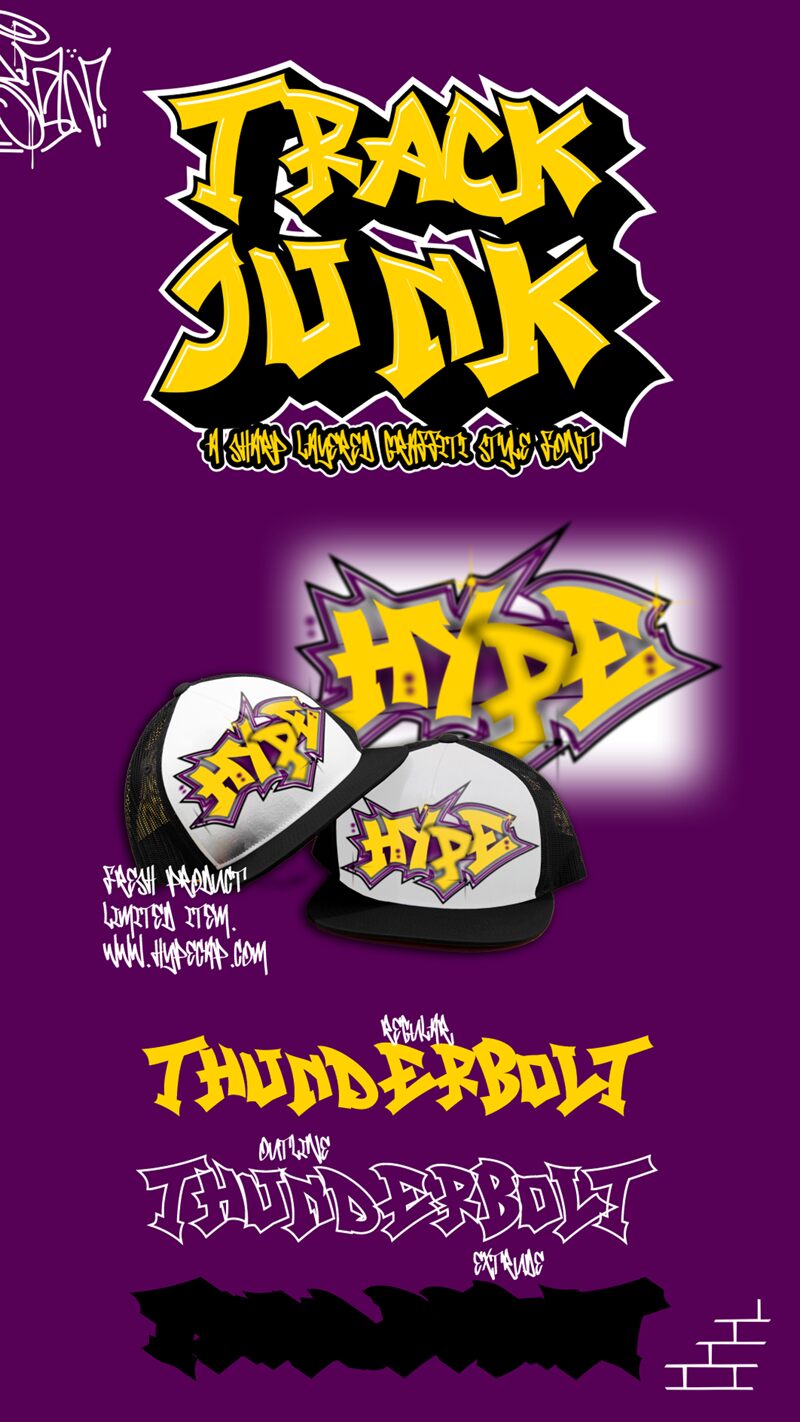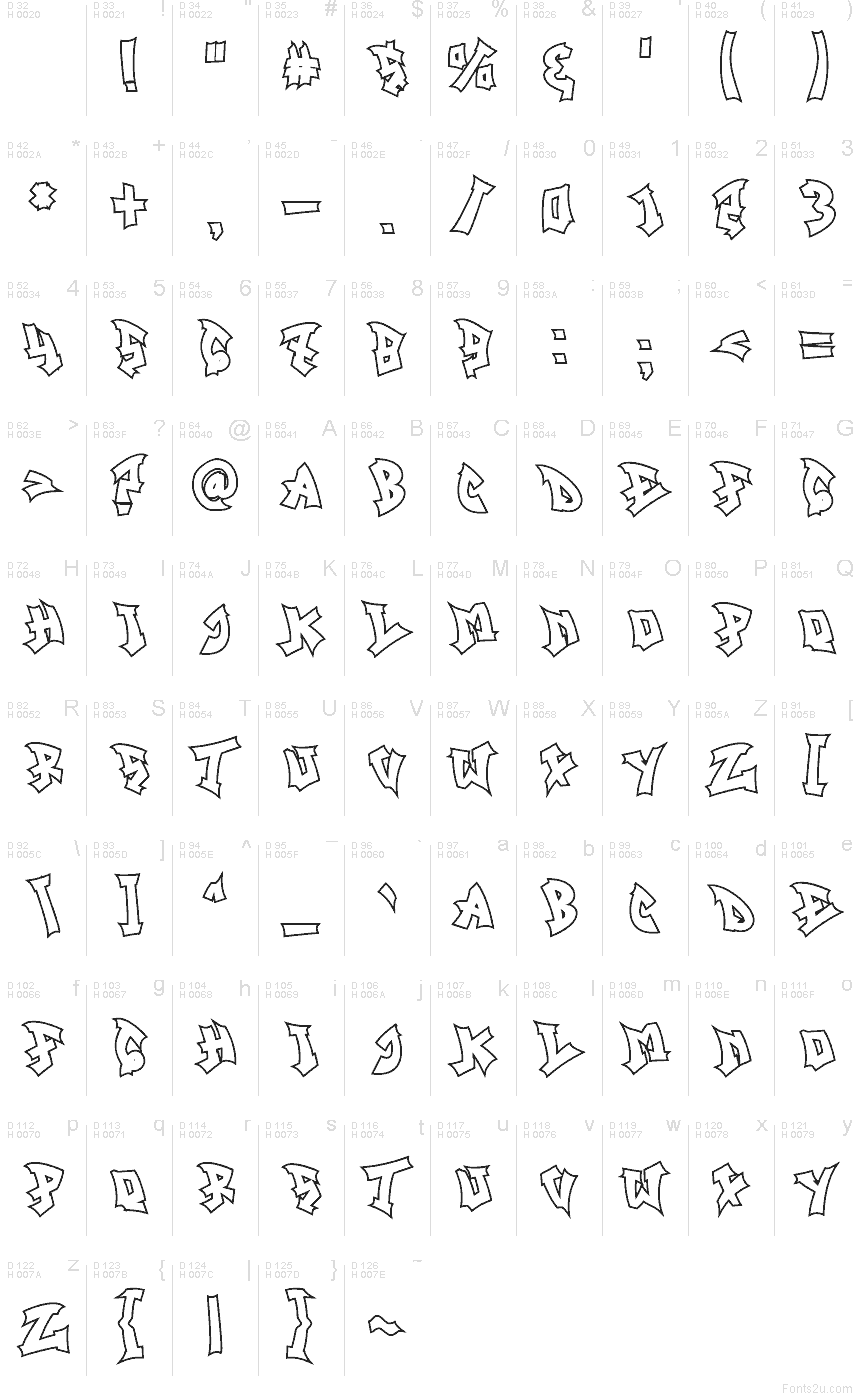
Track Junk Outline Outline
Track Junk Outline font by Muhammad Panji Ramdhani of Sipanji x Figuree is a free graffiti font that looks like it’s been sketched straight from a notebook to a brick wall. The letters wobble and lean with sharp, jutting corners and a loose, hand-inked outline that feels raw and energetic. Because it’s just the outline, color and texture become your playground—fill it, layer it, or leave it hollow for a gritty, air-filled look.
Using Track Junk Outline, this free graffiti typeface shines on streetwear branding, skate or music posters, zines, event flyers, YouTube thumbnails, and sticker designs. The irregular rhythm keeps eyes moving, making short phrases and logos feel loud and alive. Set it big for maximum attitude, then pair it with a clean geometric sans from the Track Junk family or any simple sans-serif to keep supporting text readable and let the wild outlines steal the show.